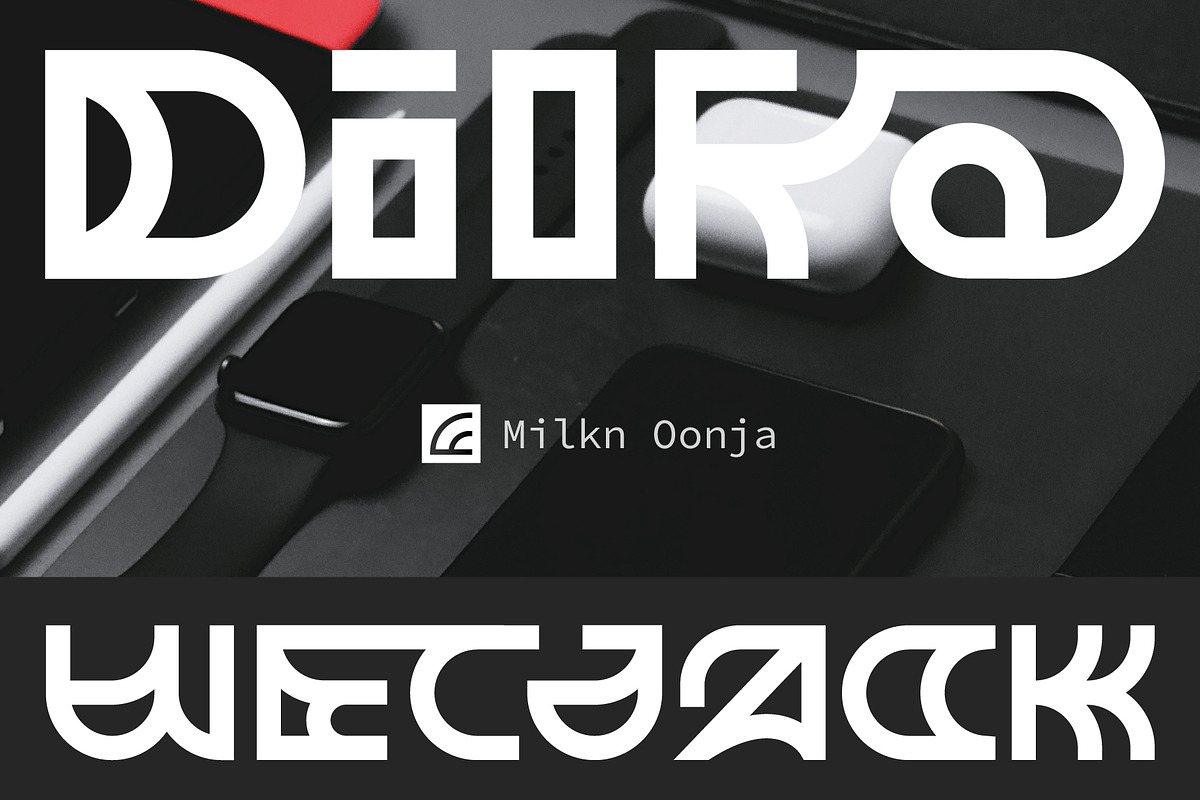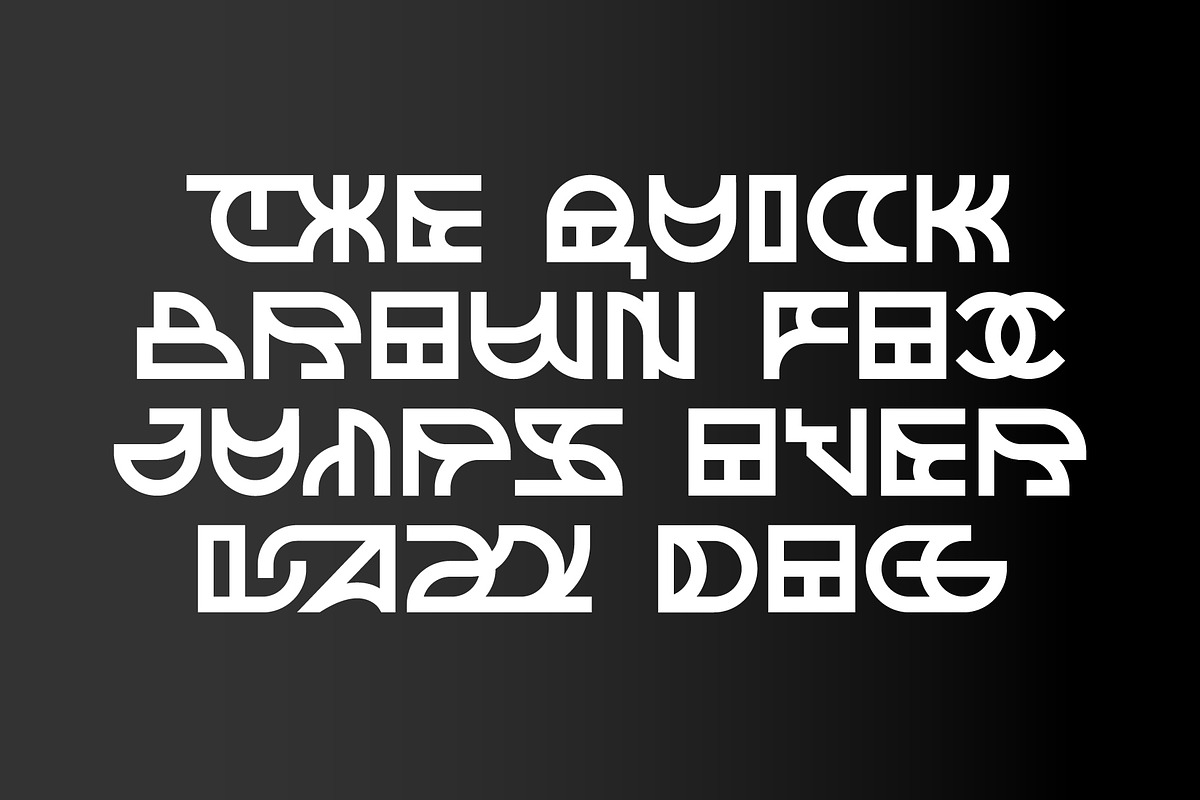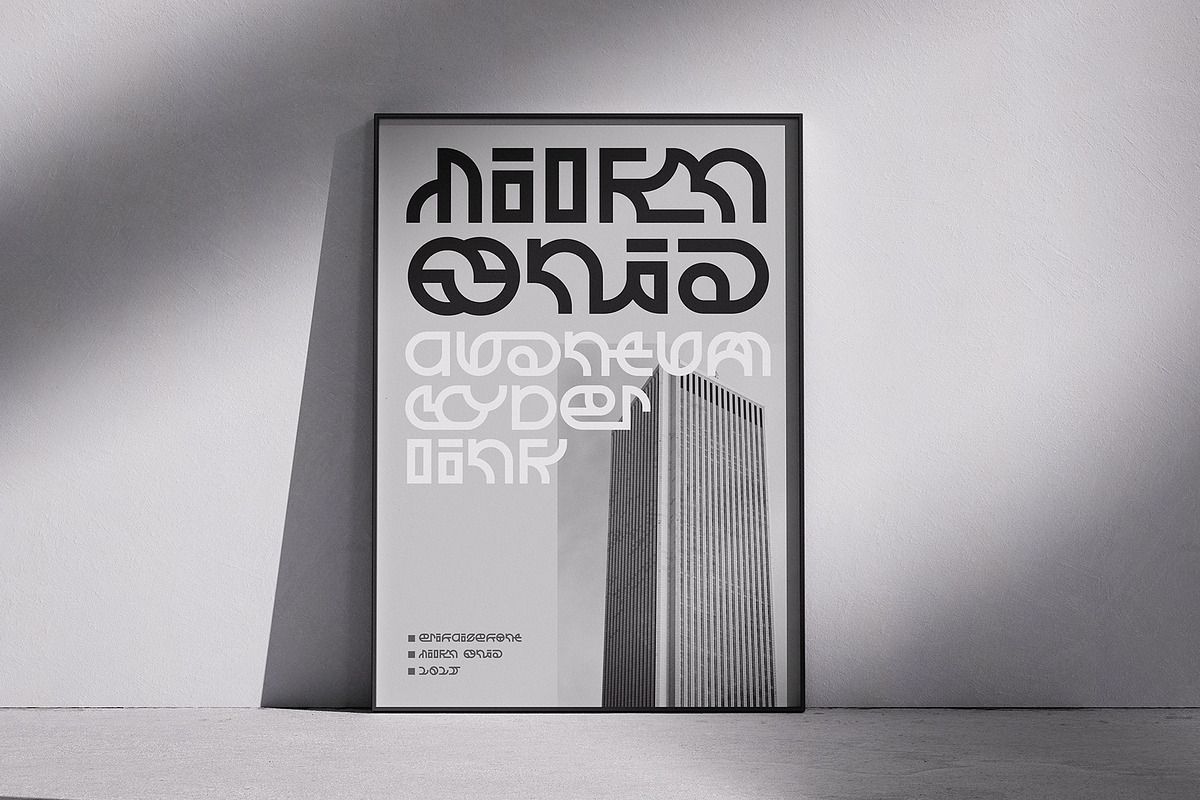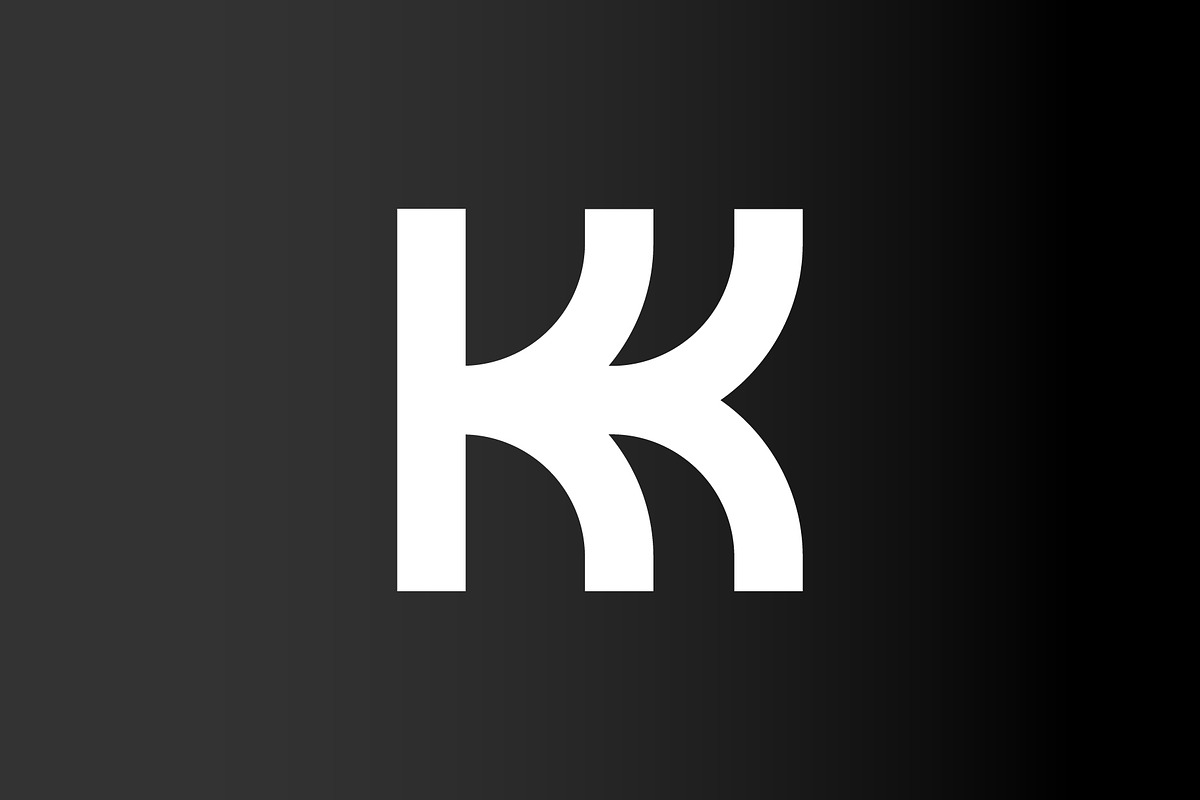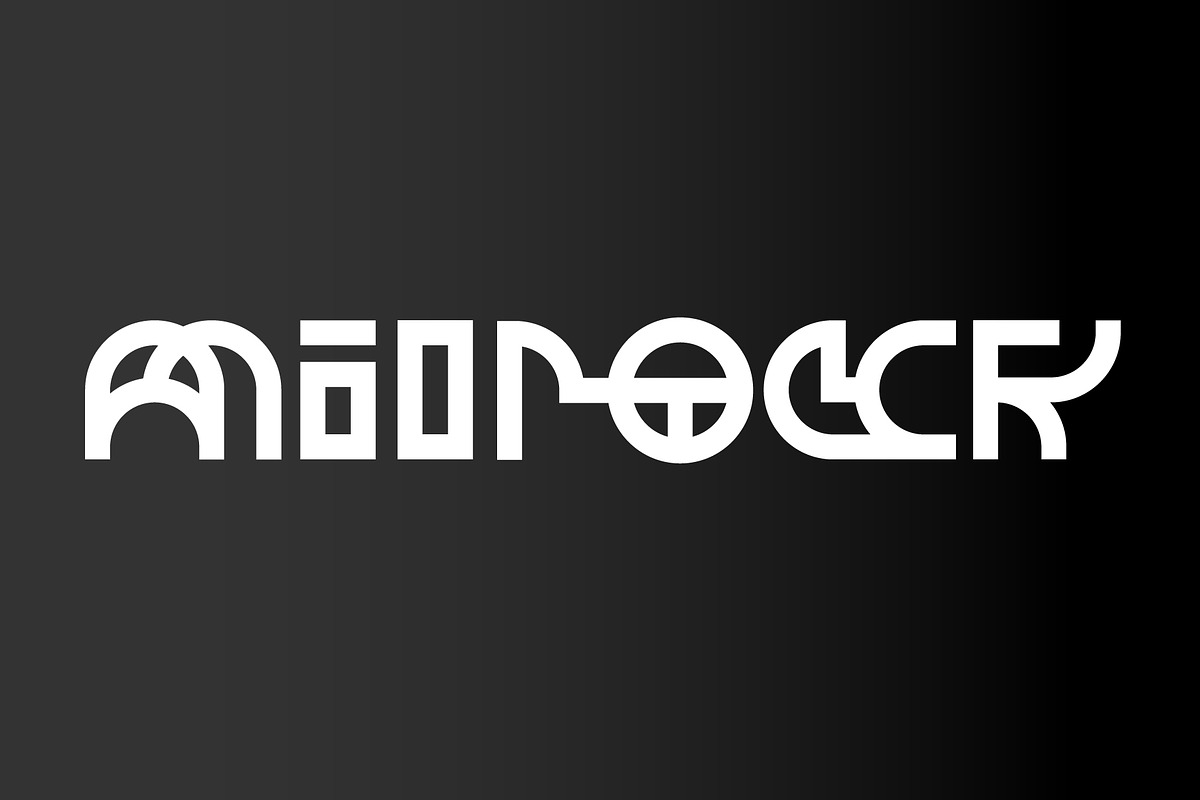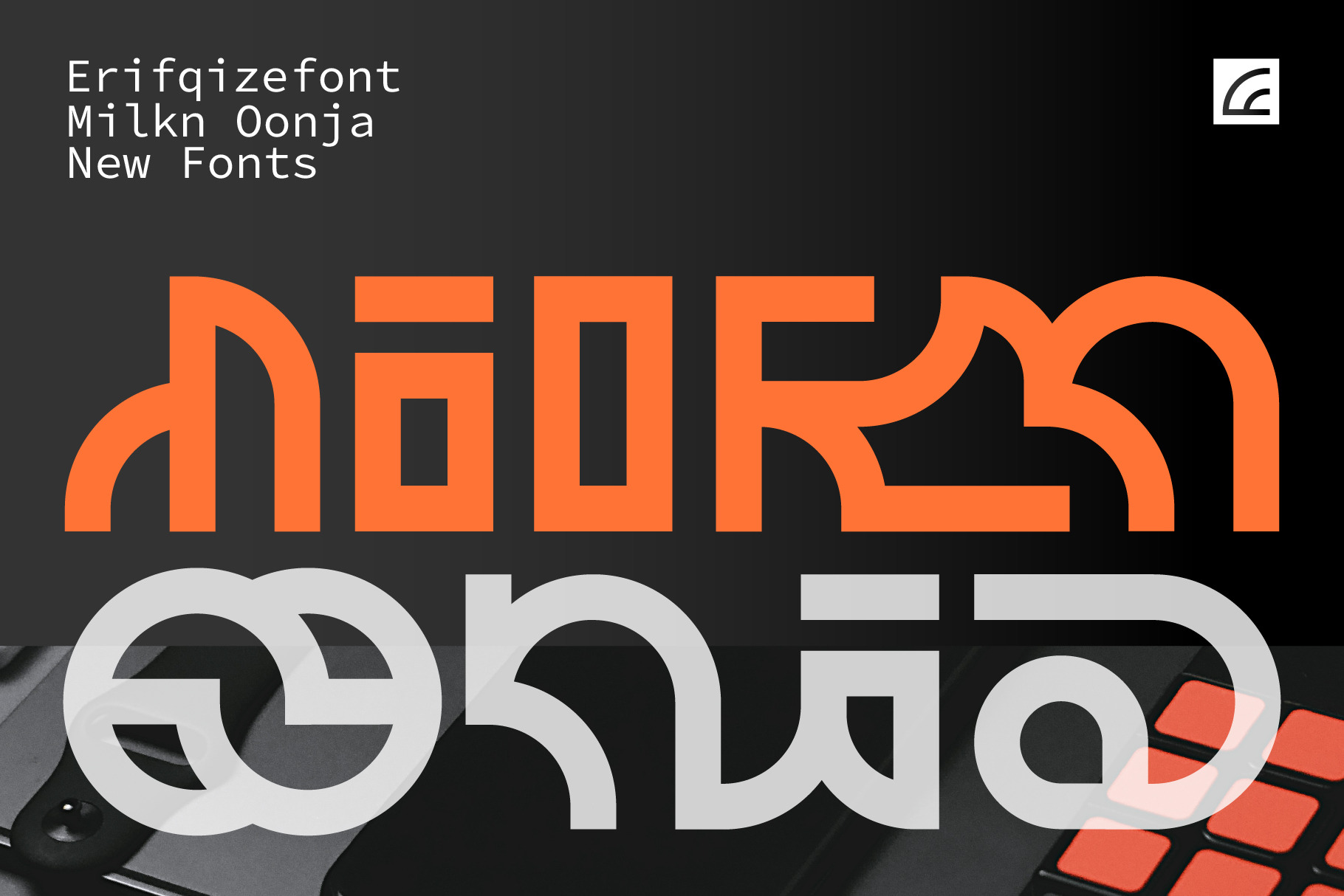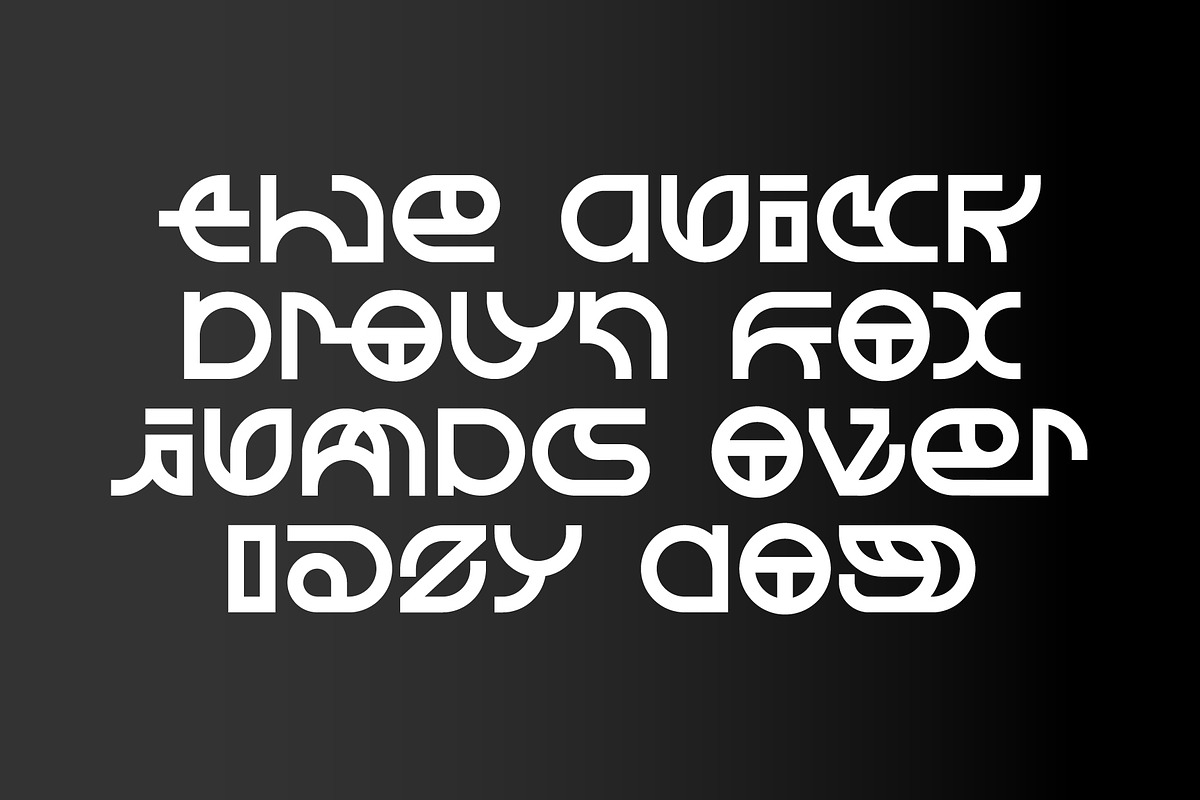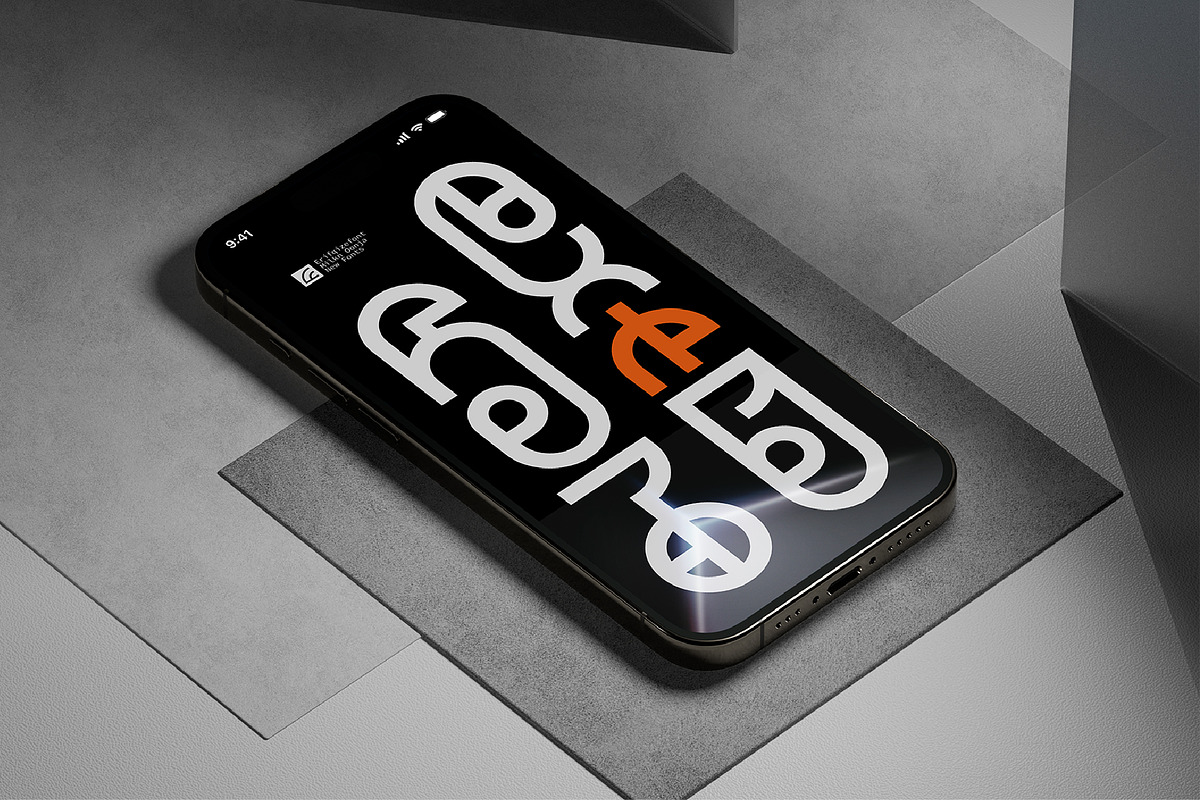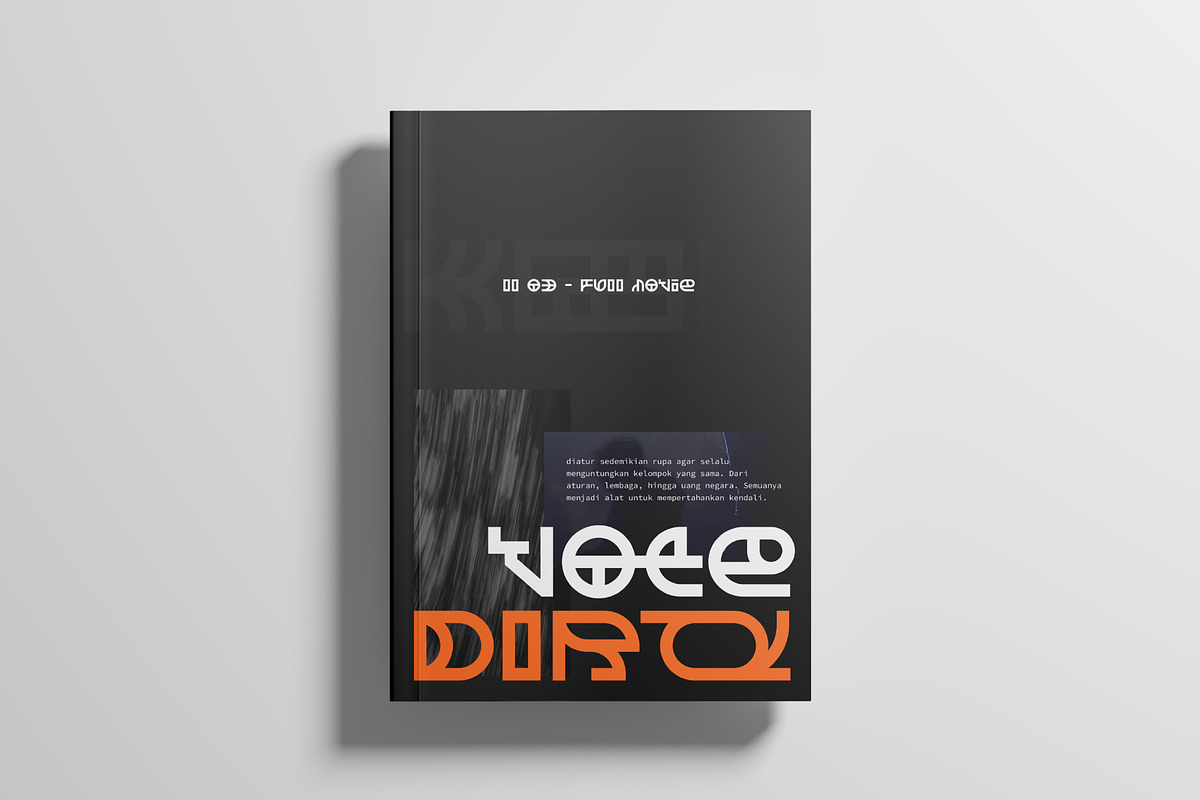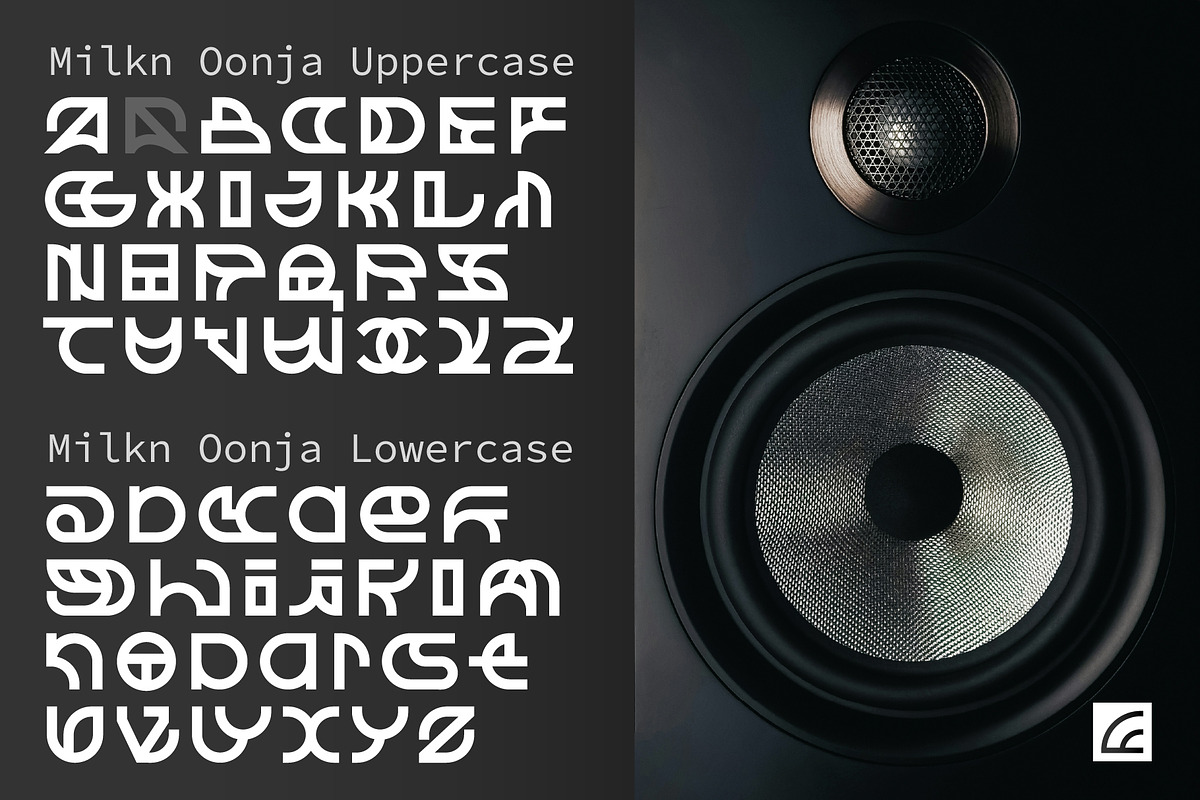
Milkn Oonja Font
Milkn Oonja is an abstract and experimental display font that blends geometric structure with organic flow. Each letterform is designed with a unique rhythm and artistic twist, giving your designs a futuristic yet expressive look.
Packed with 67 creative ligatures and multilingual support, Milkn Oonja is perfect for logos, posters, branding, album covers, and any design project that dares to be different.
Bring a bold and imaginative touch to your work with Milkn Oonja — where abstract meets creativity.
Ideal for display use, posters, and experimental projects